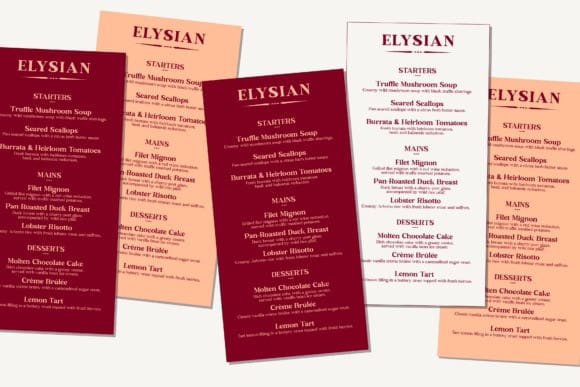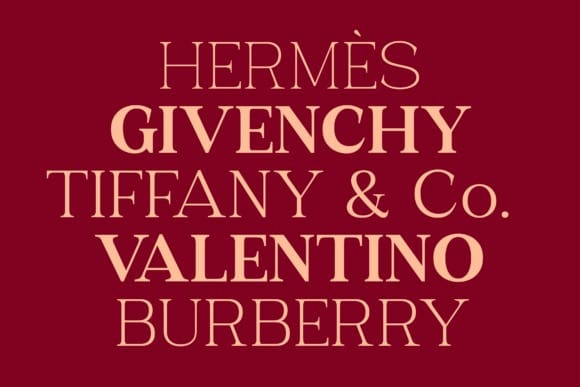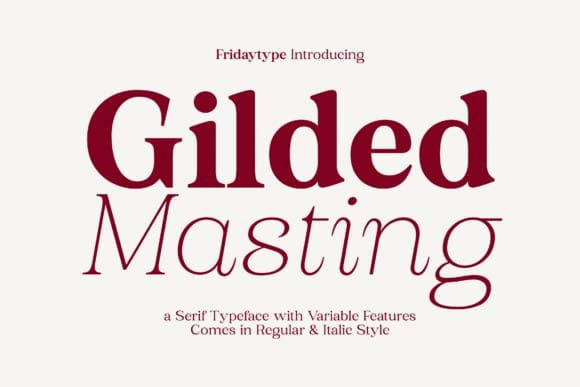
Gilded Masting Font Family
Gilded Masting Font Family is a refined serif display font family blending sophistication and elegance, with two distinct styles: a bold Regular and a sleek, classy Italic. Its versatility makes it ideal for various applications, from branding and packaging to web design and editorial work. The bold Regular delivers impact, while the classy Italic adds refinement, perfect for luxury branding and creative projects that demand timeless beauty. Gilded Masting exudes exclusivity and professionalism in every use, from logos to web headers.